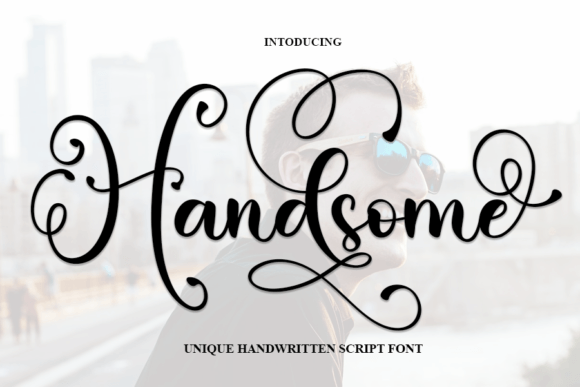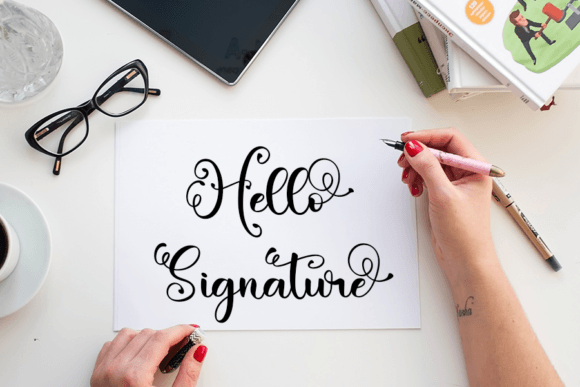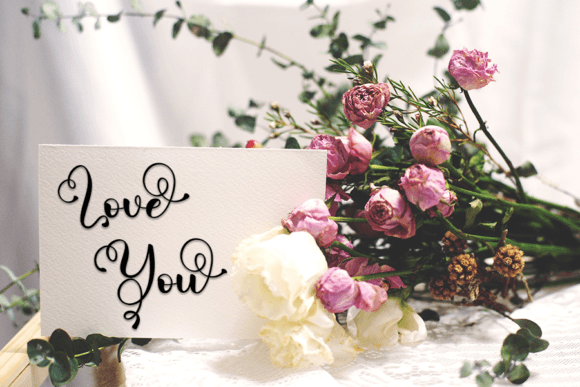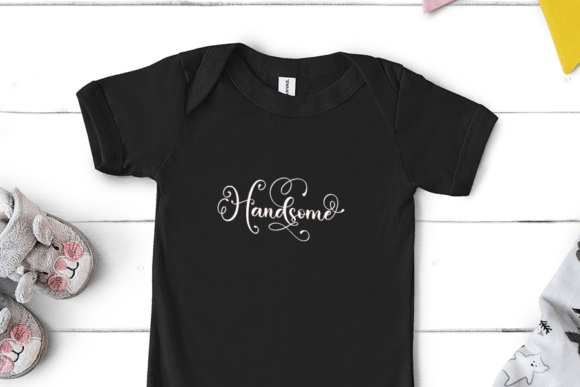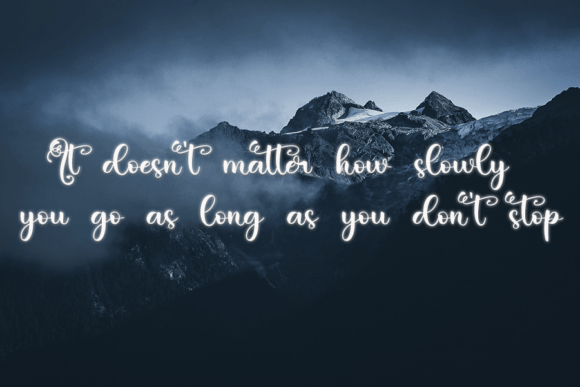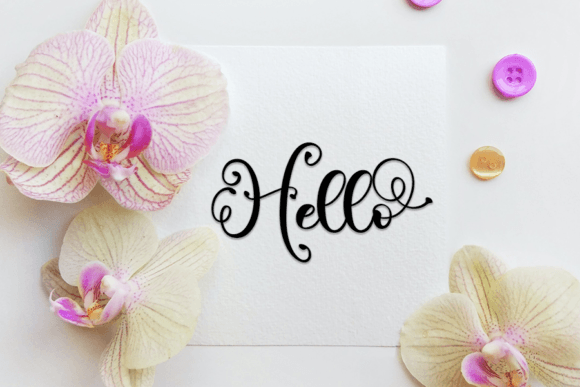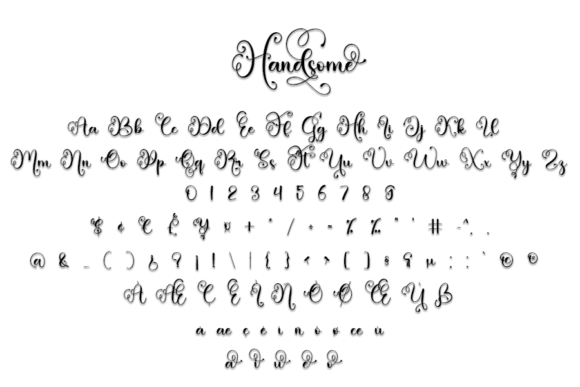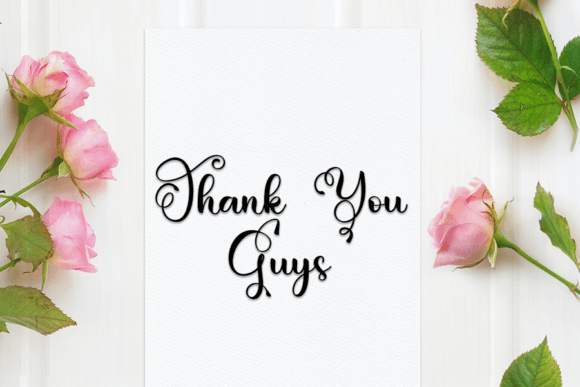
Handsome Font
About Handsome Font
“Handsome” is a sophisticated handwritten script font that effortlessly blends a modern aesthetic with impeccable form, drawing inspiration from the timeless beauty of classic calligraphy. This font strikes a harmonious balance, offering a diverse and well-crafted design that is sure to elevate the visual appeal of your creative projects.
One of the standout features of “Handsome” is its ability to capture the essence of classic calligraphy while infusing it with a contemporary twist. The font’s meticulously designed characters and clean lines pay homage to the elegance of traditional calligraphy, while its polished and modern appearance adds a fresh touch.
“Handsome” boasts a well-balanced design that is neither excessively thin nor overly thick. This equilibrium ensures that “Handsome” is a versatile choice suitable for a wide range of design applications. Whether you’re working on print materials, digital graphics, websites, or any other creative endeavor, “Handsome” adapts seamlessly to your needs.
The meticulous craftsmanship and impeccable execution of “Handsome” make it a perfect choice for projects where aesthetics and visual impact are paramount. It excels in crafting invitations for special events, creating logos that exude sophistication, or simply enhancing the overall visual appeal of your content.
Furthermore, “Handsome” is more than just a font; it’s a design asset that exudes character and charm. Its handwritten appearance adds a personal and authentic touch to your projects, making them feel warm and inviting. It’s an excellent choice when you want to inject a sense of humanity and approachability into your work.
In conclusion, “Handsome” is a remarkable handwritten script font that seamlessly bridges the gap between classic calligraphy and contemporary design. Its ability to strike a perfect balance between tradition and modernity, its adaptability to various creative projects, and its capacity to infuse a personal touch into your designs make it an invaluable addition to your font collection. Elevate your projects with the timeless elegance and modern vibe of “Handsome” – a font meticulously designed to enhance the beauty of your creations.